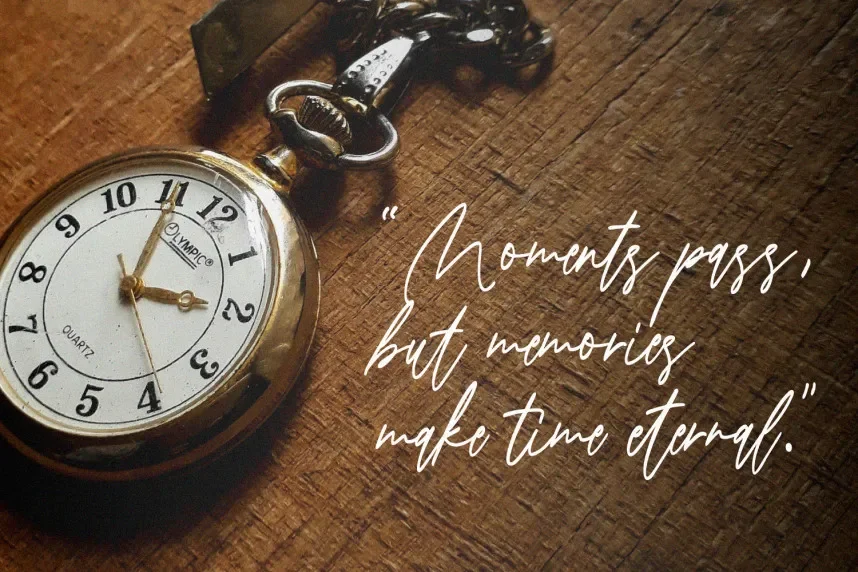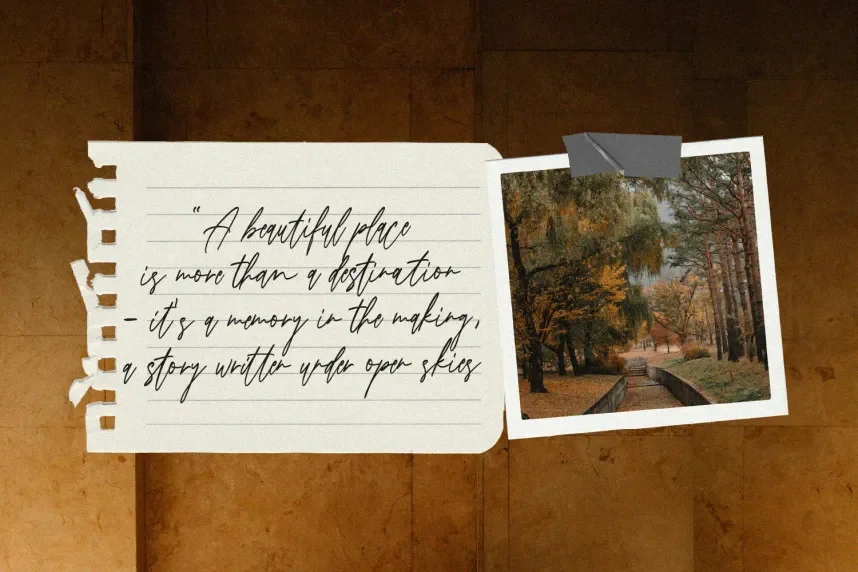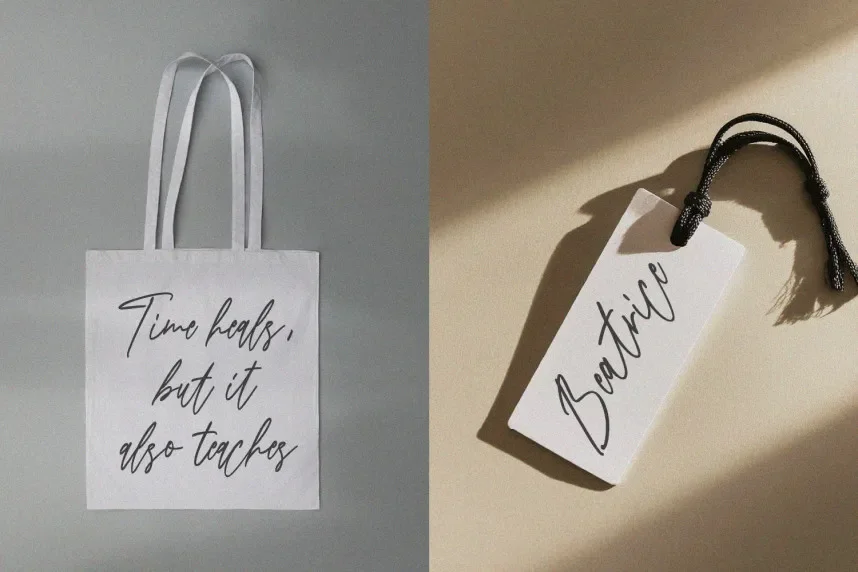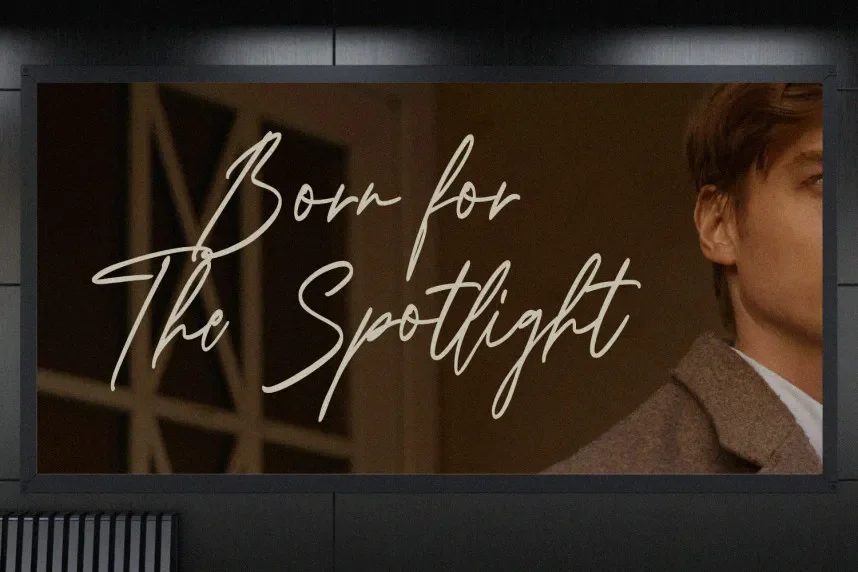
Naqianotis Font is a luxury script typeface designed to enhance readability and elegance in branding, wedding invitations, and professional signatures. It addresses common design challenges such as creating a refined handwritten style without sacrificing legibility or consistency across print and digital formats.
Naqianotis features flowing letterforms, smooth curves, and subtle swashes that mimic natural handwriting. It includes standard ligatures, uppercase and lowercase letters, and numerals, providing versatility for logos, stationery, and digital design. The font balances decorative appeal with functional clarity, making it suitable for headings, social media posts, and email signatures.